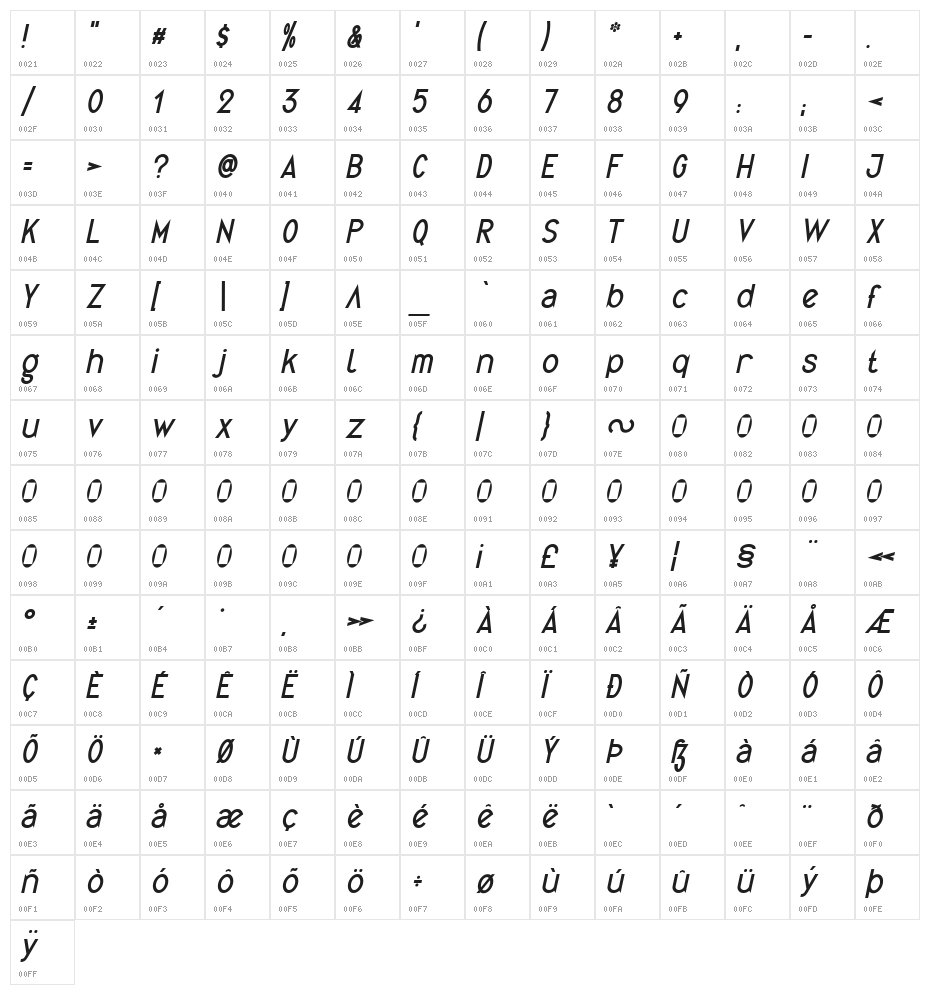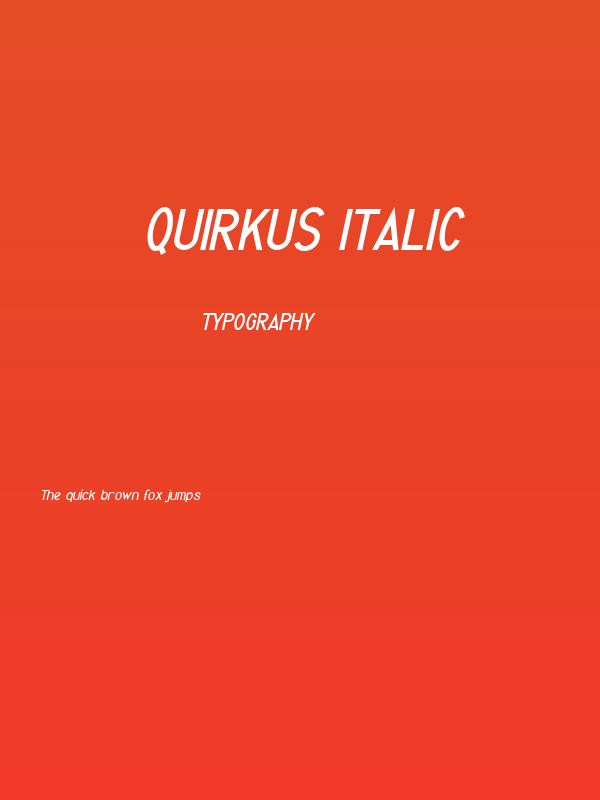
Quirkus Italic Font
Quirkus Italic Description
This font features a dynamic and slanted design, characterized by its italic style that gives a sense of motion and fluidity. The characters are slightly condensed, enhancing readability while maintaining a sleek appearance. The strokes are consistent in thickness, providing a uniform look across all characters. This font includes a full set of uppercase and lowercase letters, numbers, and a variety of special characters, making it versatile for different uses. Its modern and clean aesthetic makes it suitable for contemporary design projects.
Use CaseHeadlines, Logos, Advertising
Proposed ProjectsIdeal for branding, advertising, and editorial design where a modern and fluid style is desired.